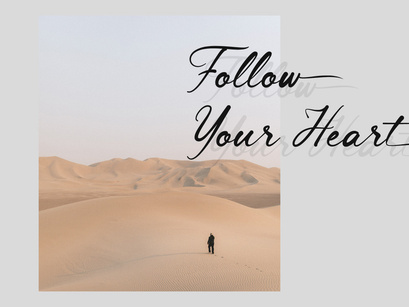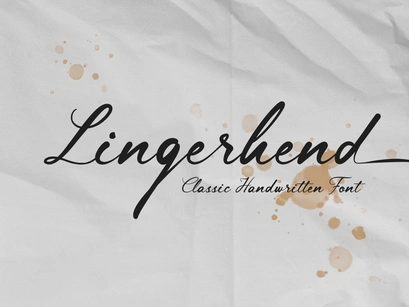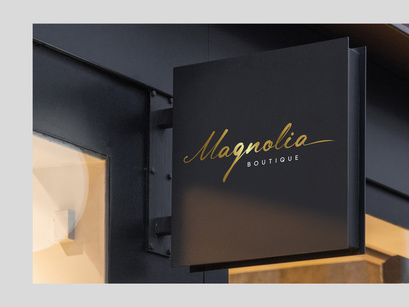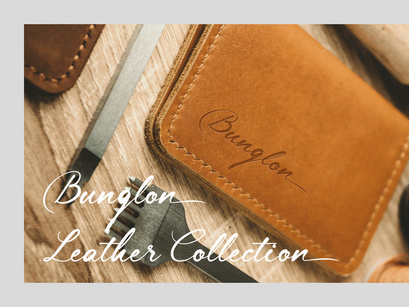
Lingerhend is a classic handwritten script font. It’s the perfect font for wedding invitations, stationery, photography, social media posts, product packaging, greeting cards, and much more!
Ligature
Swash
Uppercase and Lowercase letters
Numbering and Punctuations